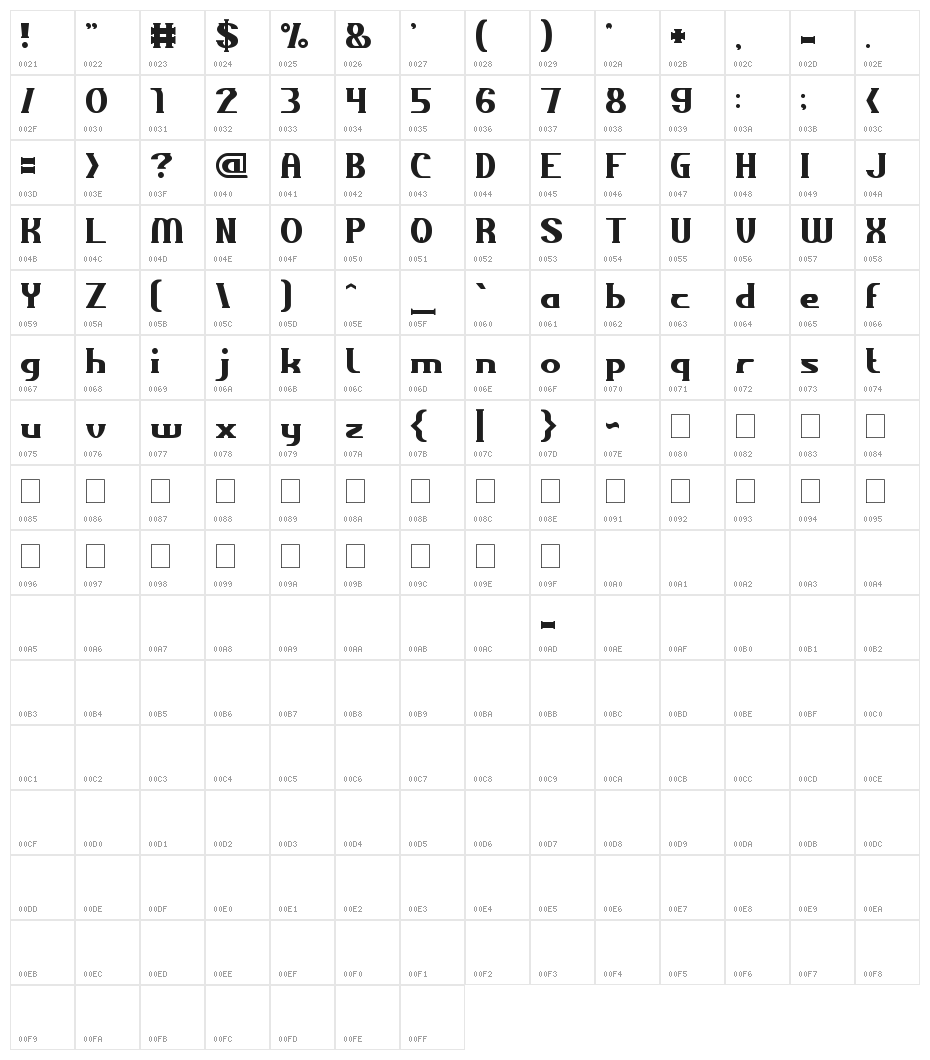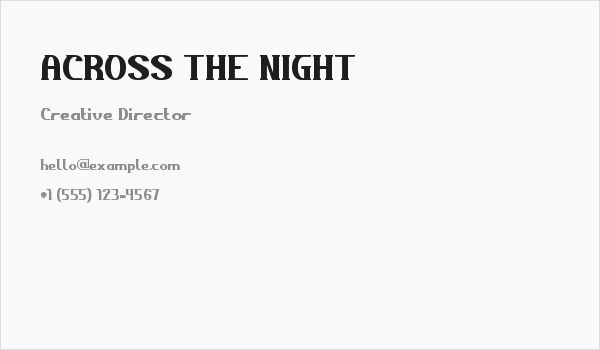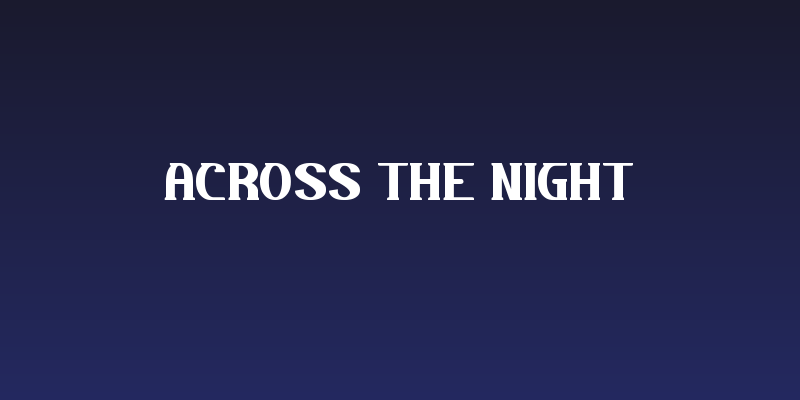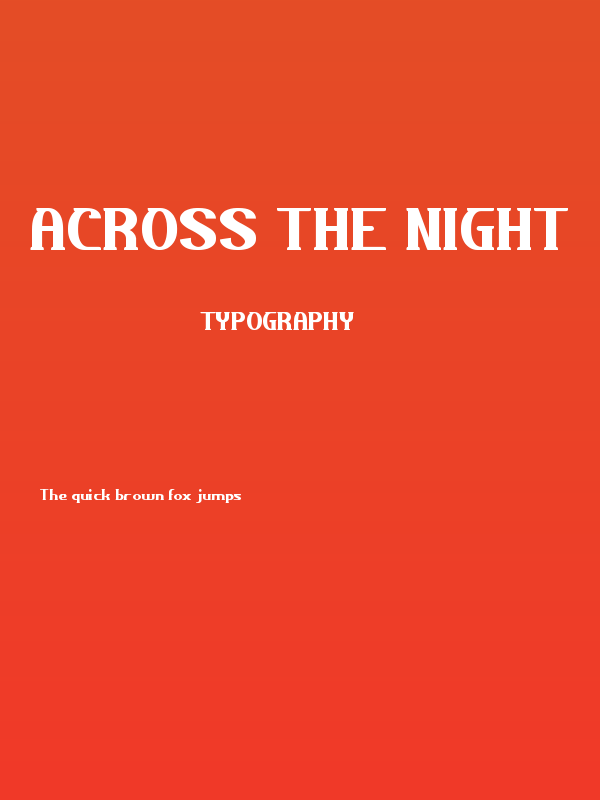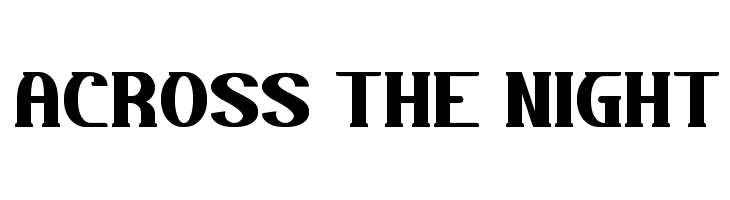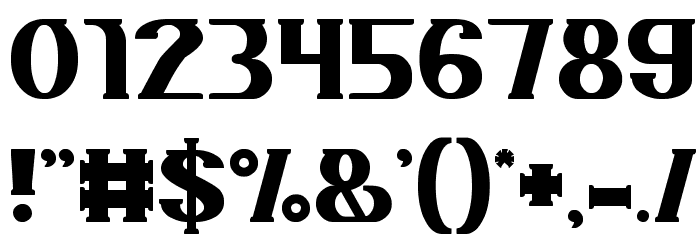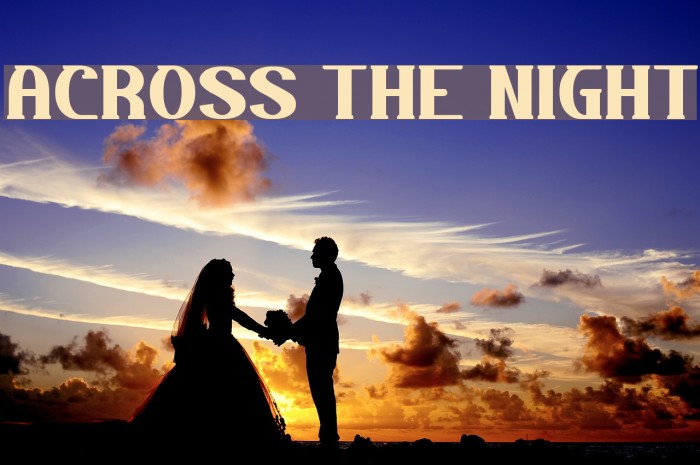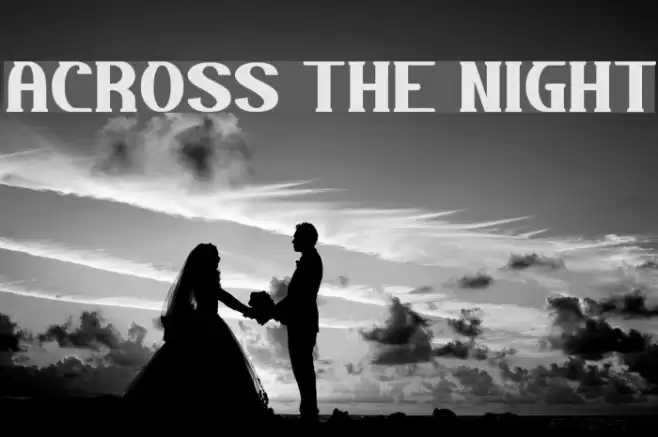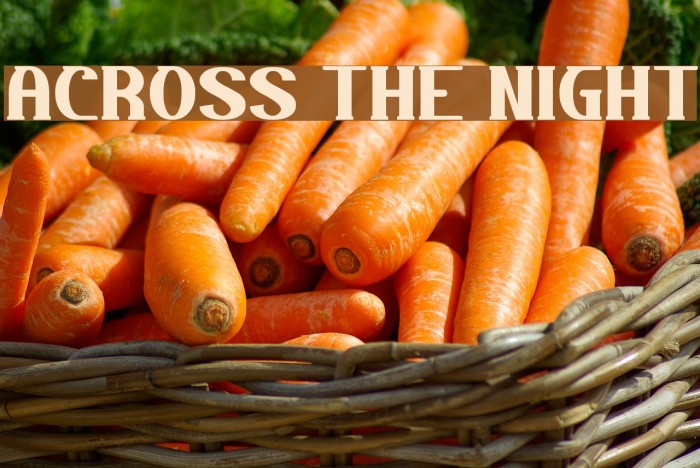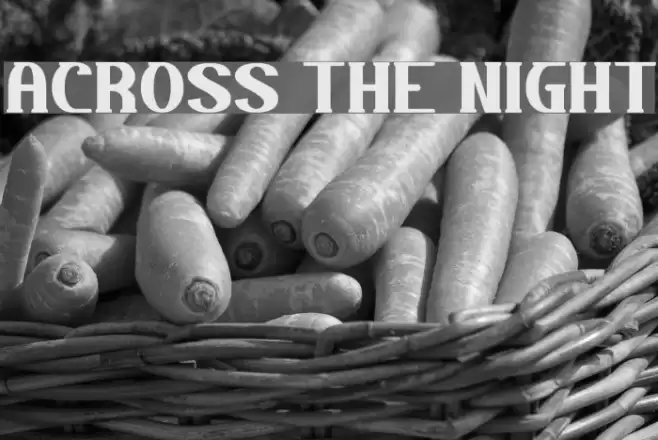
ACROSS THE NIGHT Font
ACROSS THE NIGHT Description
This font features a bold and striking design with a unique blend of modern and vintage elements. The uppercase letters are characterized by their strong, geometric shapes and slightly condensed forms, giving them a commanding presence. The lowercase letters maintain a consistent style, with smooth curves and sharp angles that create a harmonious balance. The numerals are equally bold, with a uniform width that ensures readability. Special characters are crafted with the same attention to detail, making them suitable for a variety of design applications. Overall, this font exudes a sense of strength and sophistication, making it ideal for impactful headlines and branding projects.
| Width | Condensed |
| Overall Style | Modern, Vintage |
| Use Case | Headlines, Logos, Branding |
| Proposed Projects | Ideal for branding, posters, headlines, and any design requiring a strong visual impact. |